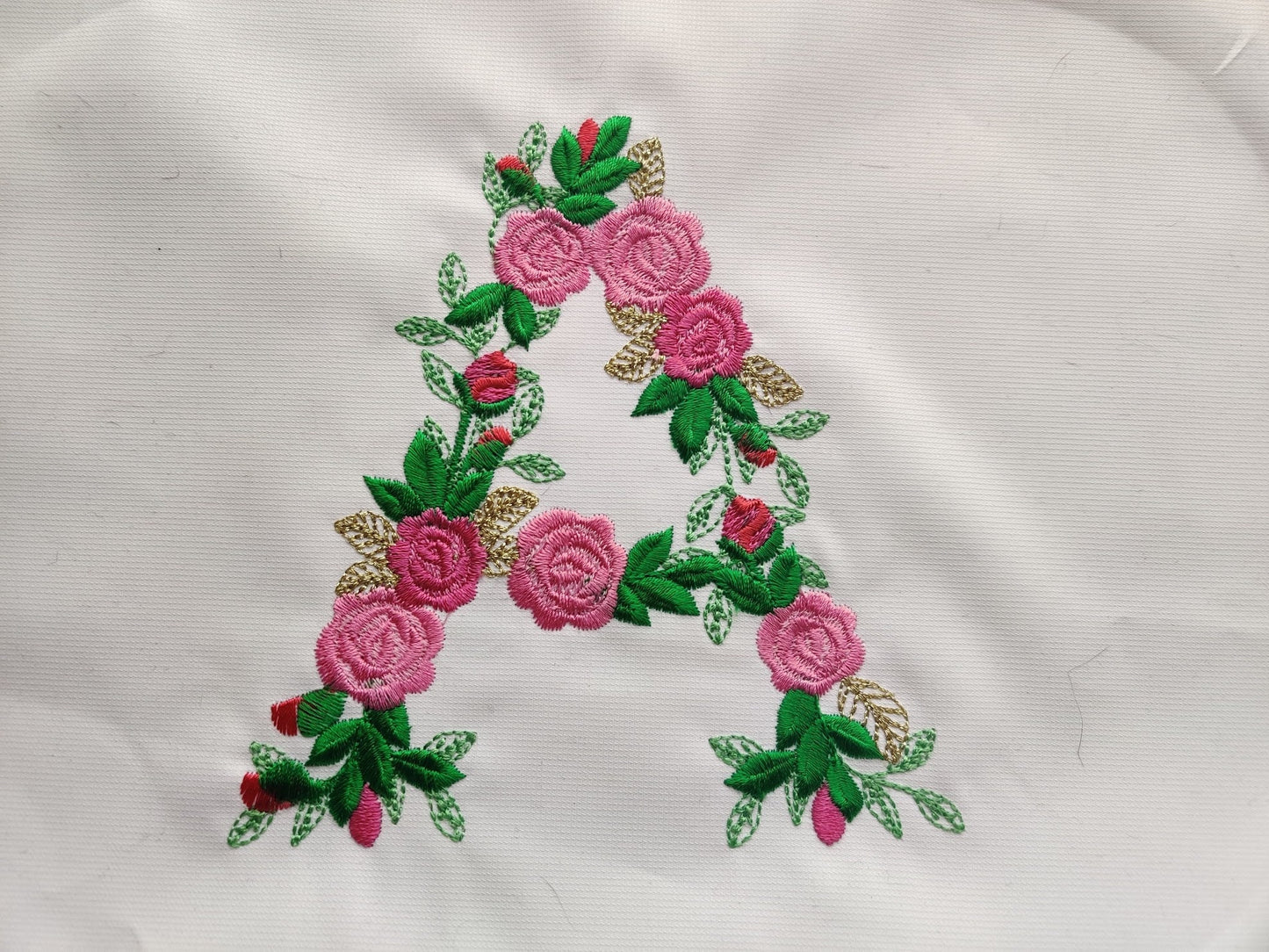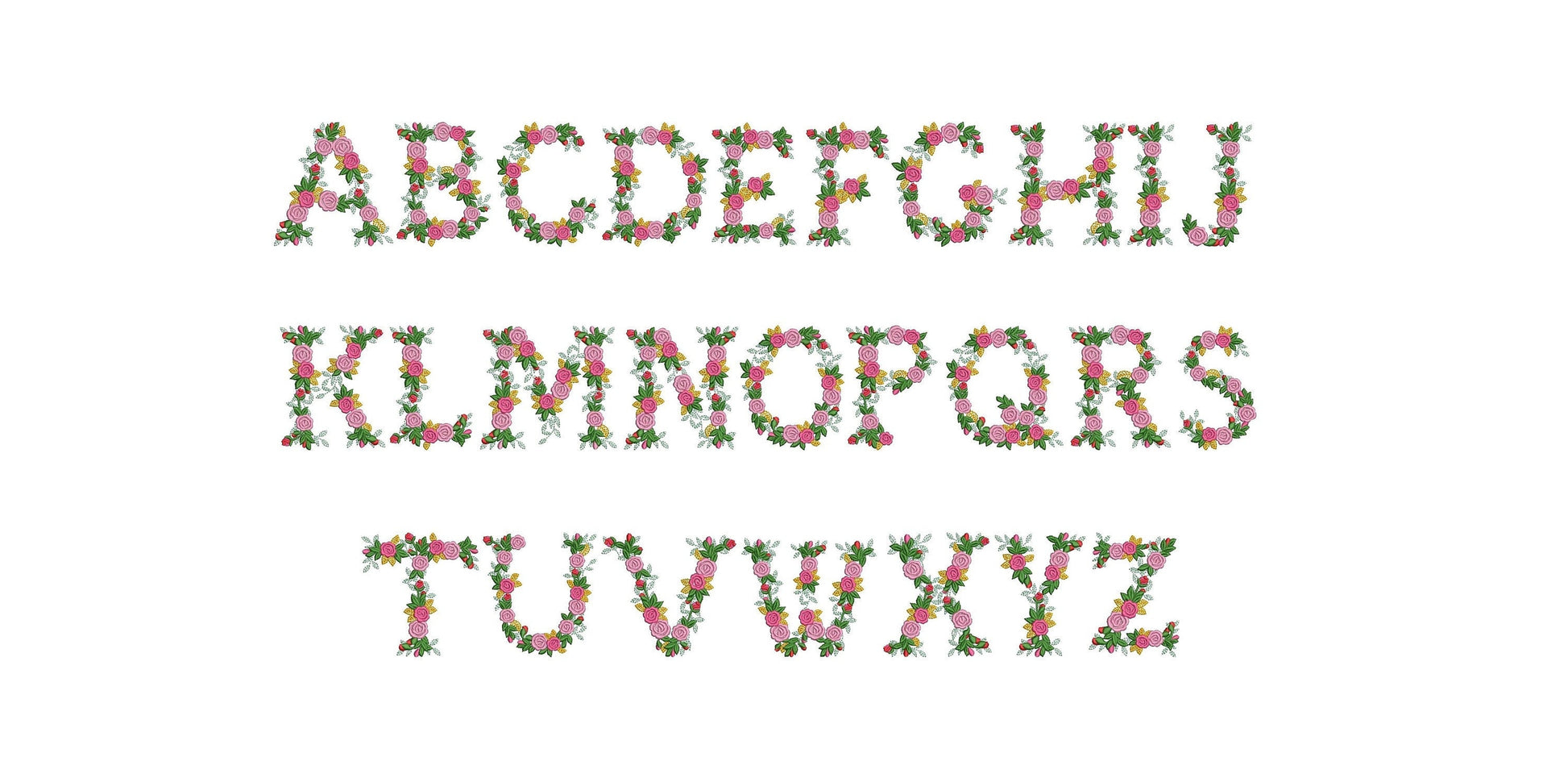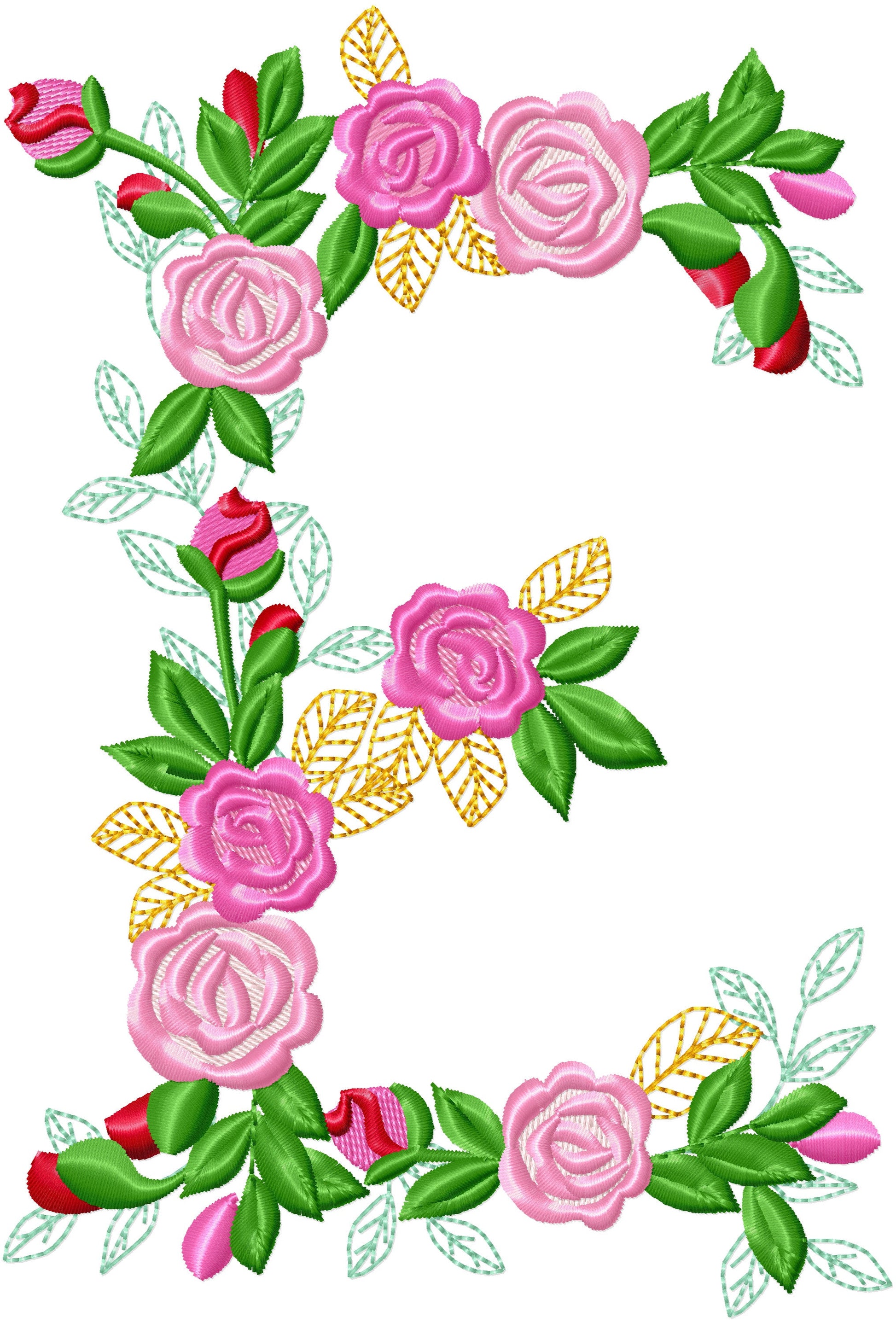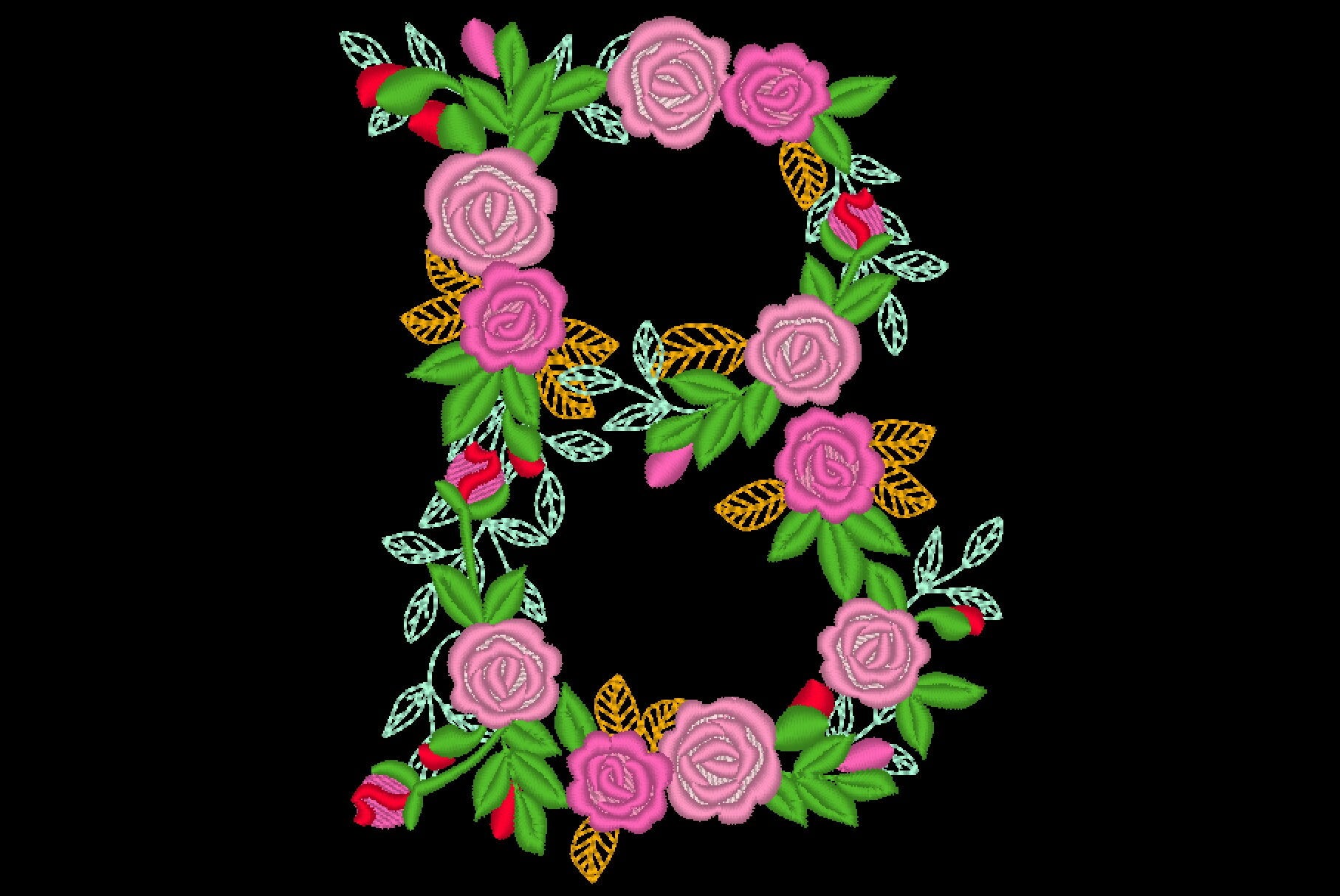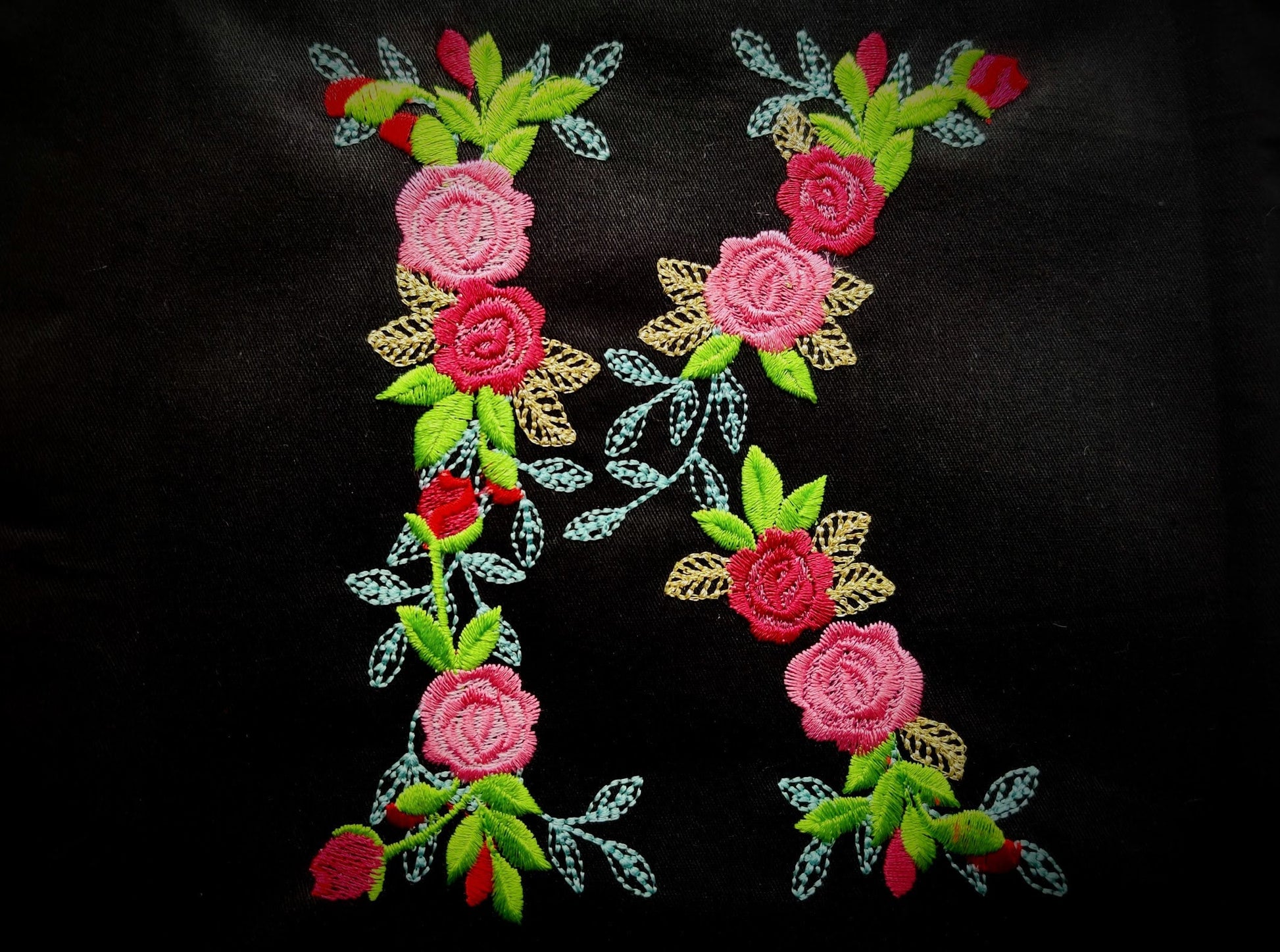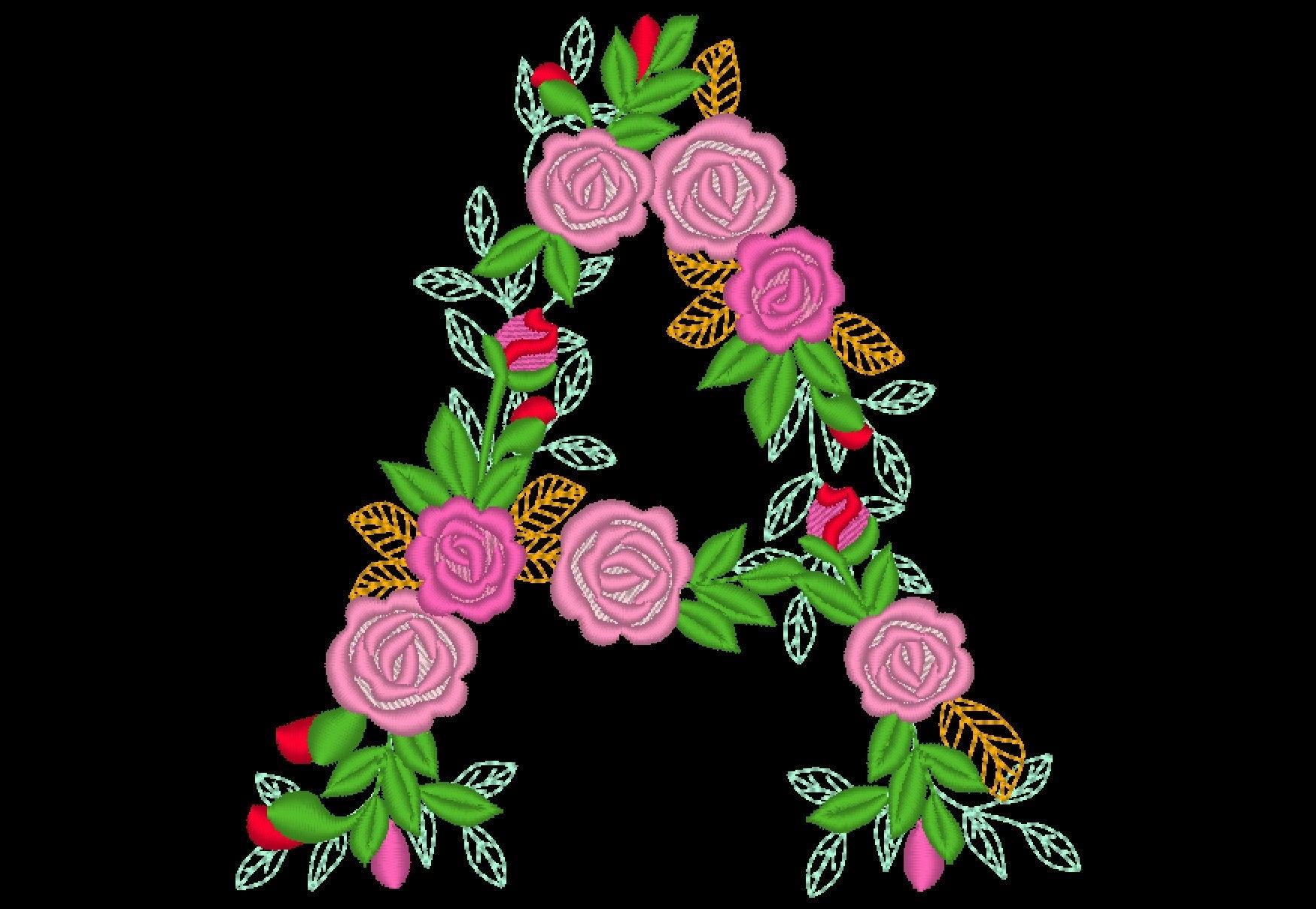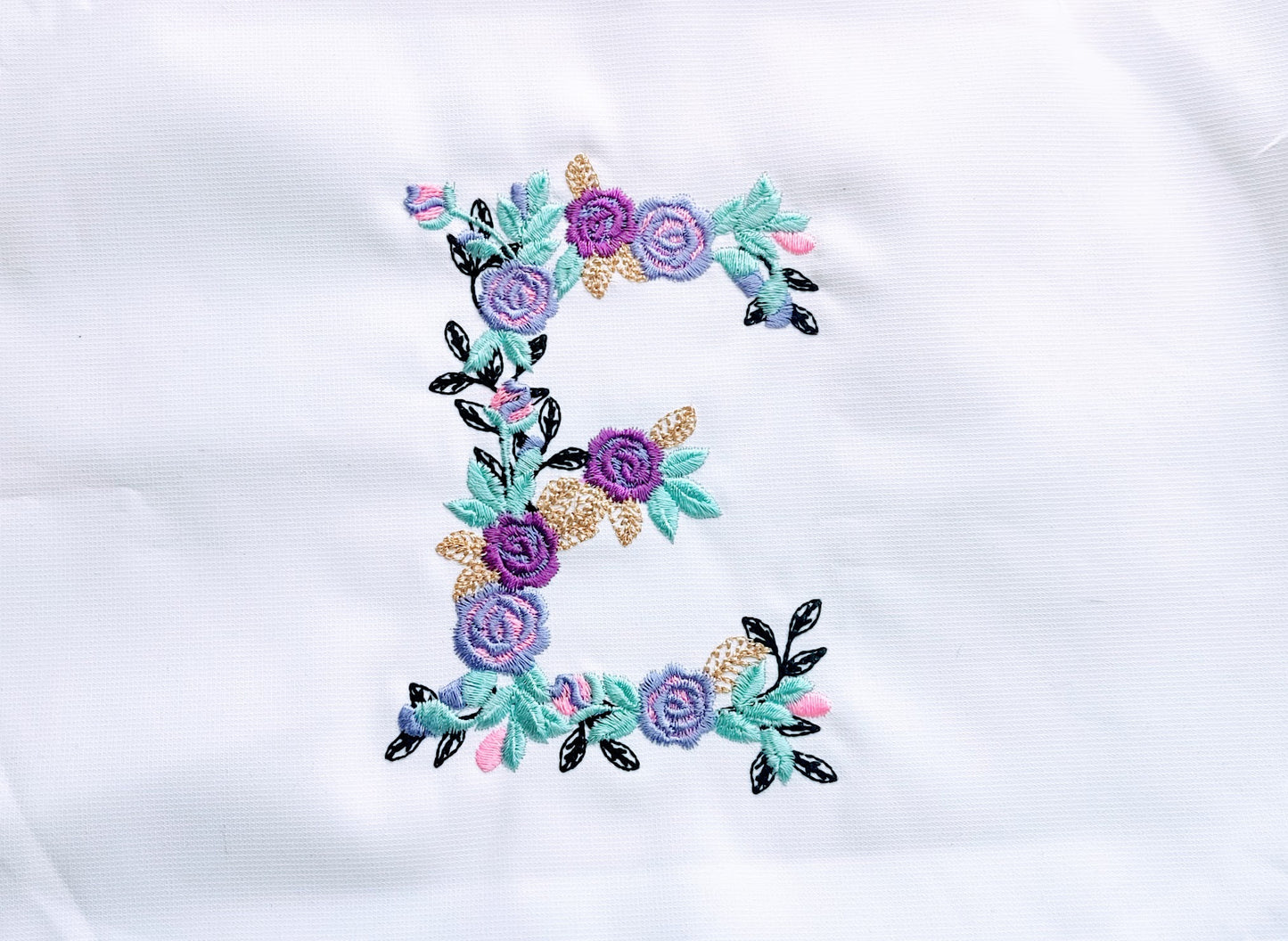
Urban Roses Floral Font
Capital letters A to Z in five sizes: 3, 4, 6, 7 and 8 inches. Every letter is filled with roses.
- Urban roses floral font
- Capital letters A-Z
- 5 sizes, 3 to 8 in